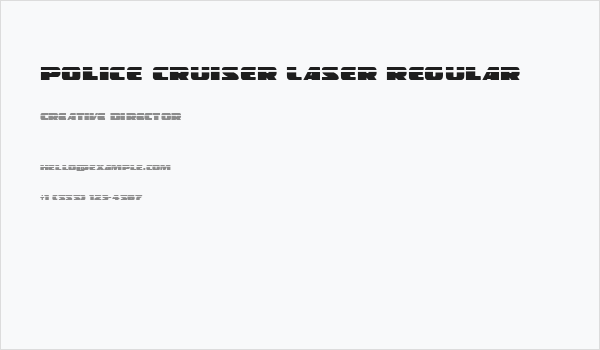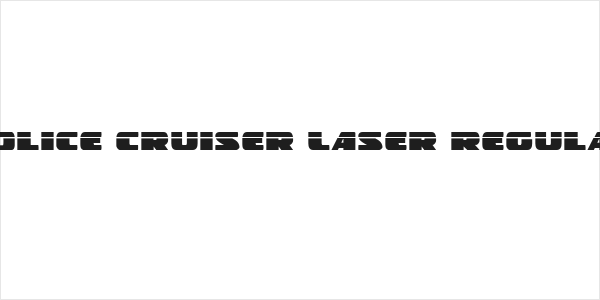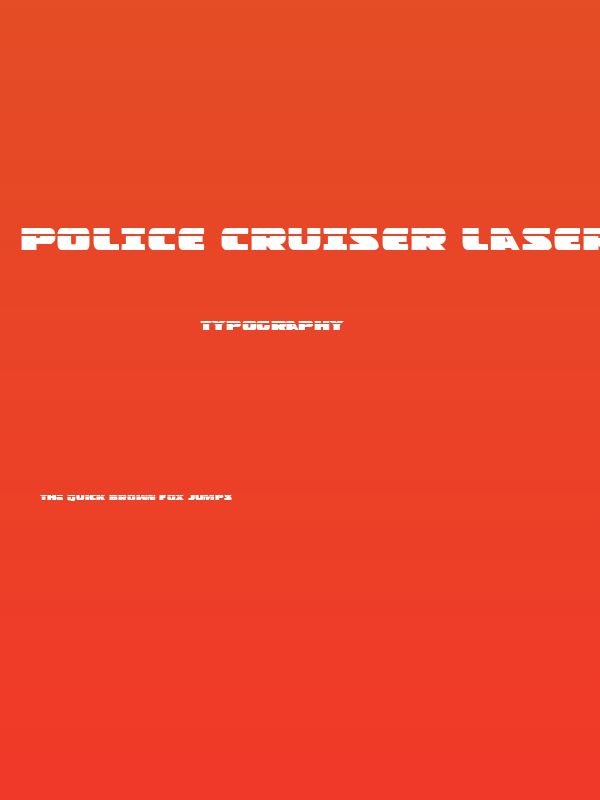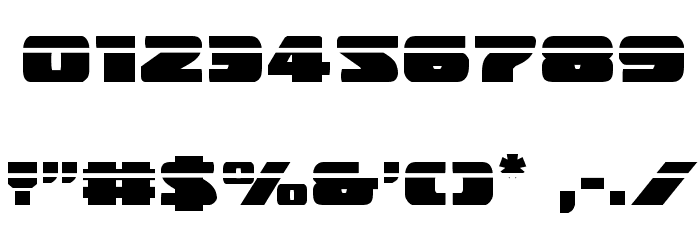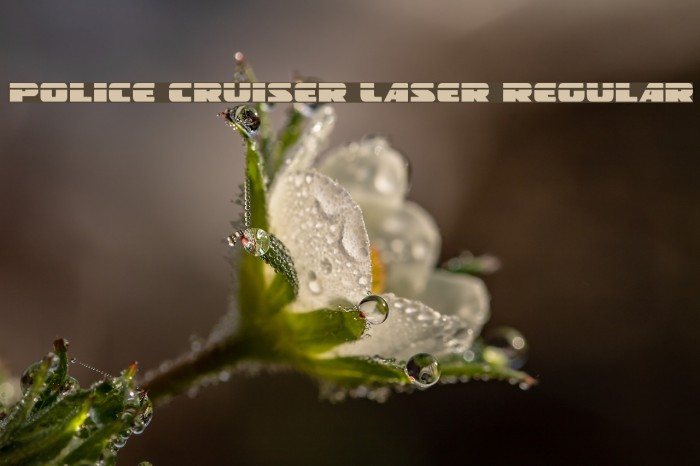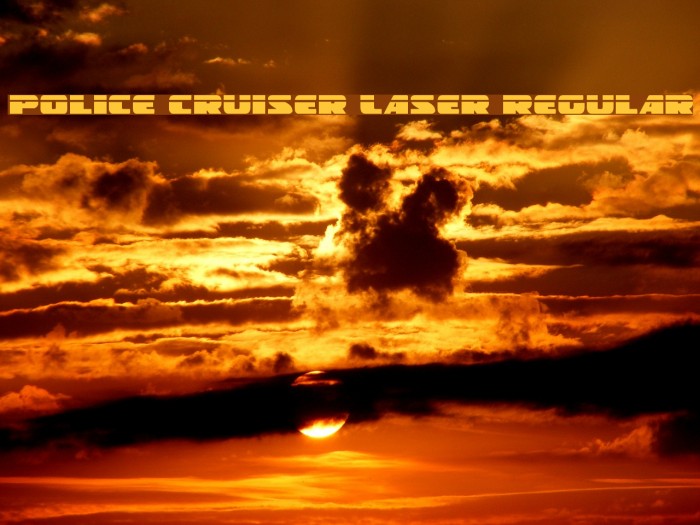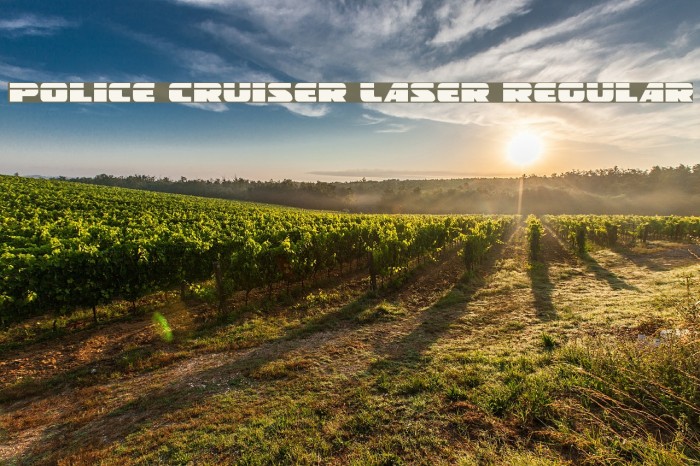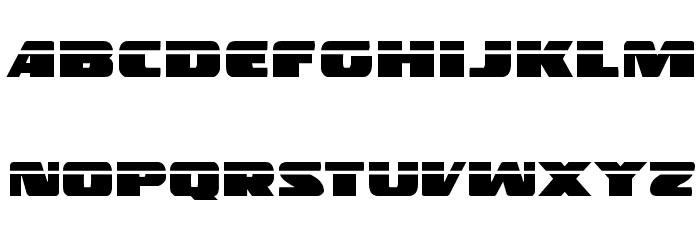
Police Cruiser Laser Regular Font
Police Cruiser Laser Regular Description
This font features a bold, futuristic design with a strong geometric structure. The characters are constructed with sharp angles and a blocky appearance, giving it a distinct, modern look. The uppercase and lowercase letters maintain a consistent style, with the lowercase being slightly smaller but equally bold. Numbers and special characters are designed to match the overall aesthetic, ensuring uniformity across all glyphs. The font's unique style makes it stand out, with a high level of contrast between the thick strokes and the negative space within each character.